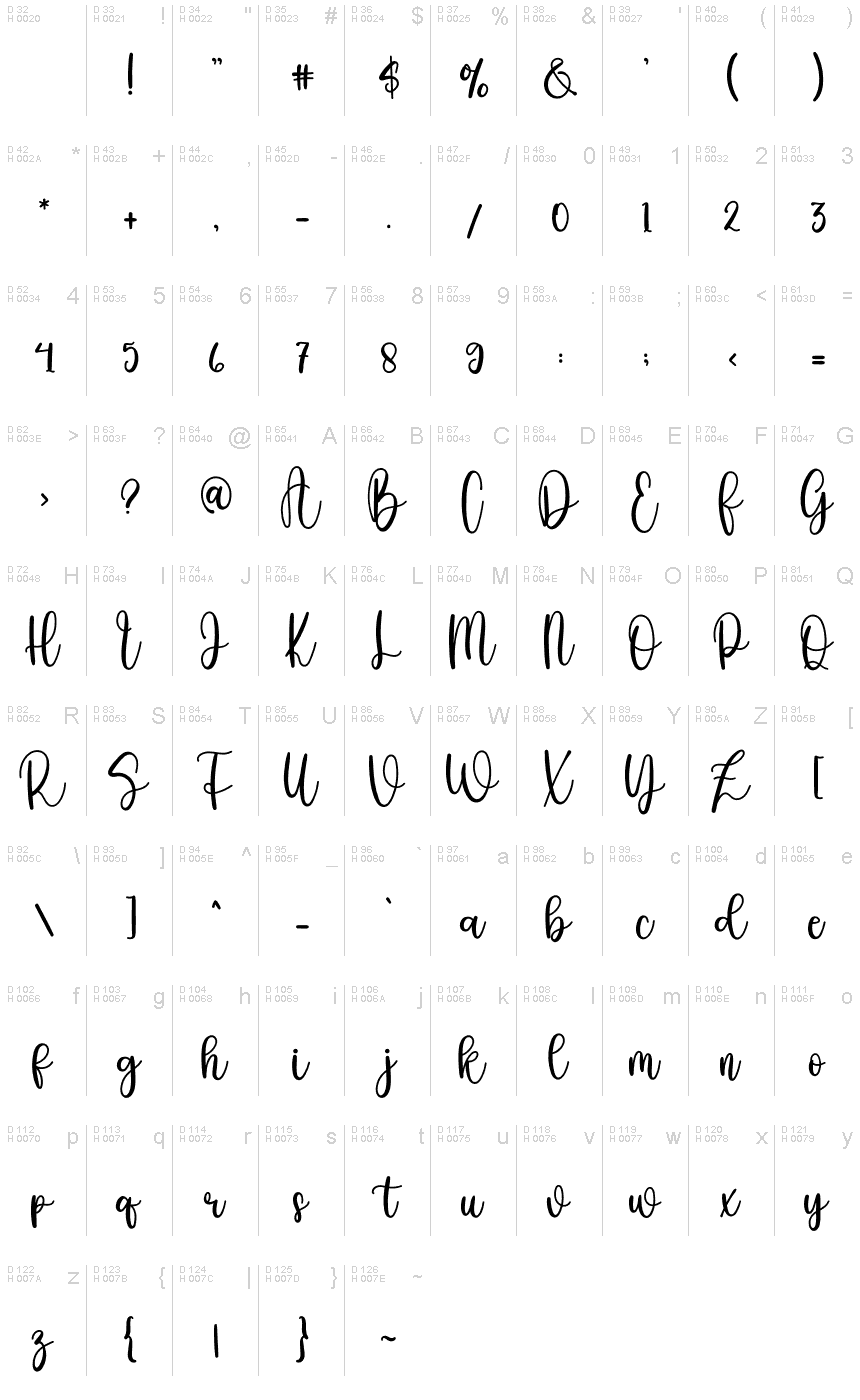
Candy Christmas
Candy Christmas is a sweet and festive handwritten font by FreshtypeINK. With its playful style and condensed lettering, it's perfect for holiday-themed designs, such as greeting cards, invitations, and social media graphics. Add a touch of whimsy to your Christmas designs with the light and airy Candy Christmas.